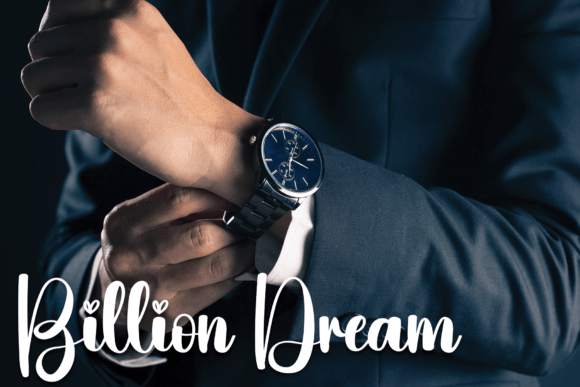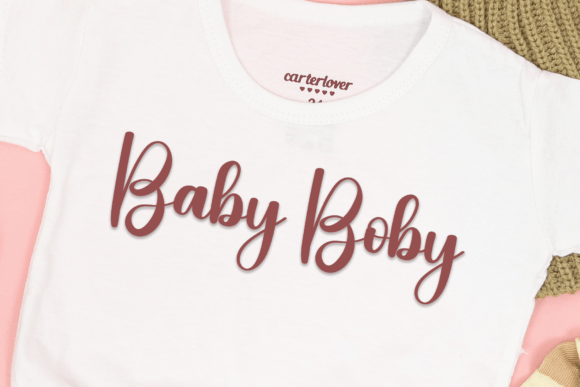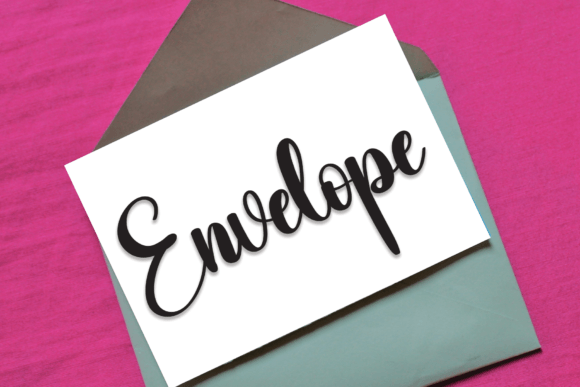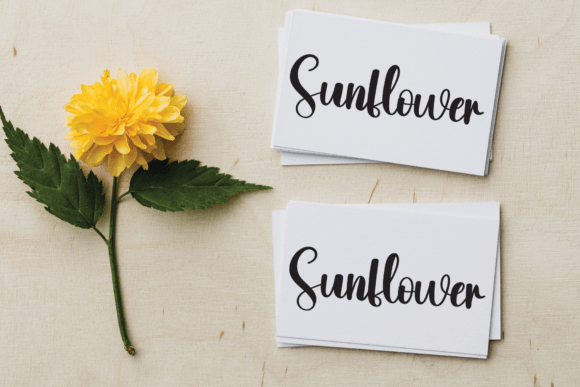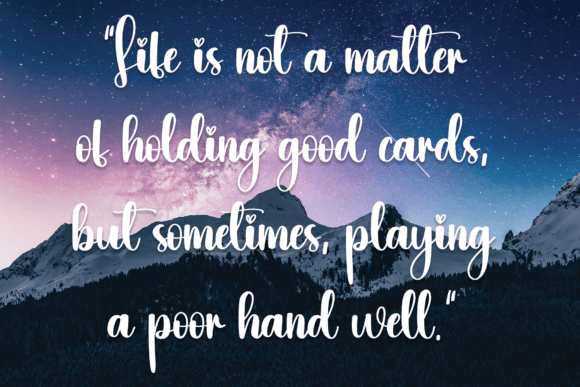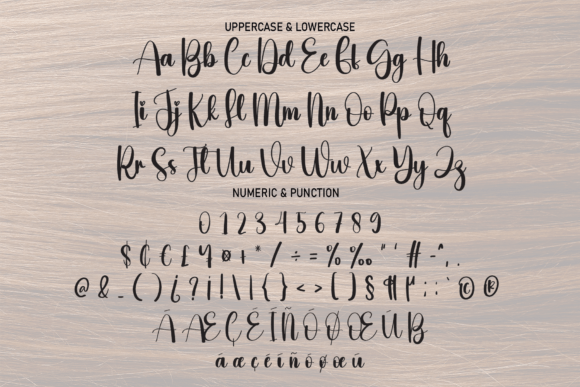
Introduction to Hooked Font
Have you ever stumbled upon a beautifully handwritten font that instantly transports you to a world of creativity and possibility? For designers, this moment is like finding a hidden treasure, and it’s exactly what happens when you discover the Hooked Font. Its elegant and charming style is a game-changer for any creative project, from wedding invitations to business cards.
With its versatility and unique aesthetic, the Hooked Font is a valuable resource for designers looking to add a personal touch to their designs. Whether you’re working on a high-quality logo or a free download design, this font is sure to elevate your project and make it stand out from the crowd. Plus, its transparent background feature allows for endless design possibilities, making it a must-have for any design enthusiast.
Key Features of Hooked Font
- High-quality design with a unique, hand-drawn aesthetic, making it perfect for creative projects that require a personal touch.
- Transparent background, allowing for seamless integration into various design backgrounds and compositions.
- Features a wide range of characters, including uppercase and lowercase letters, numbers, and punctuation marks, making it suitable for a variety of design applications.
- Designed with a high resolution (up to 1024 x 1024 pixels), ensuring crisp and clear display on high-resolution screens and print materials.
- Perfect for designers looking for a unique, creative font to add a personal touch to their projects, from logos and branding to digital and print materials.
Honest Review: Hooked Font
One of the things that really stood out about the Hooked Font is its unique, playful style. The font is perfect for adding a touch of whimsy to any design, and it’s versatile enough to be used in a variety of creative projects.
Here are some of the things that work well with the Hooked Font:
- ✨ Unique and playful style that adds a touch of whimsy to designs
- ✨ High quality, with a clear and crisp font face
- ✨ Perfect for creative projects, such as illustrations and graphics
- ⚠️ The font is not suitable for professional or formal designs, as it can come across as too playful
- ⚠️ The font may not be as effective on a transparent background, as the thin lines can get lost
Overall, I was really impressed with the Hooked Font, and I would definitely recommend it to anyone looking for a fun and creative design resource. With a little bit of caution, it can be a great addition to any design project.
To get the most out of Hooked Font, experiment with different font sizes, colors, and combinations with other design elements. Use it in creative projects such as invitations, posters, or social media graphics for a unique and engaging look.
Hooked Font is perfect for a variety of design projects, including:
- Invitations and event graphics